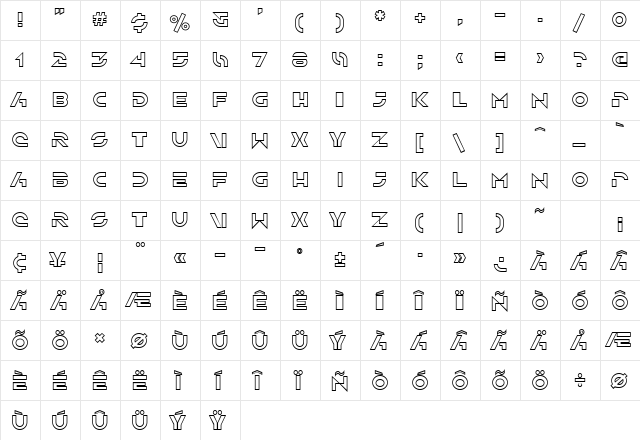
SF Solar Sailer Outline Regular
Design Context for SF Solar Sailer Outline Typeface
SF Solar Sailer Outline is built around its visual character rather than neutral utility — its distinctive forms are designed to make an impression at display sizes.
Font Pairing: Pair with a clean neutral sans-serif for body copy to let SF Solar Sailer Outline's character lead without overwhelming the composition.
Pro Tip: Treat SF Solar Sailer Outline as the centrepiece of your typographic hierarchy. One strong heading set in a decorative face can carry an entire layout.